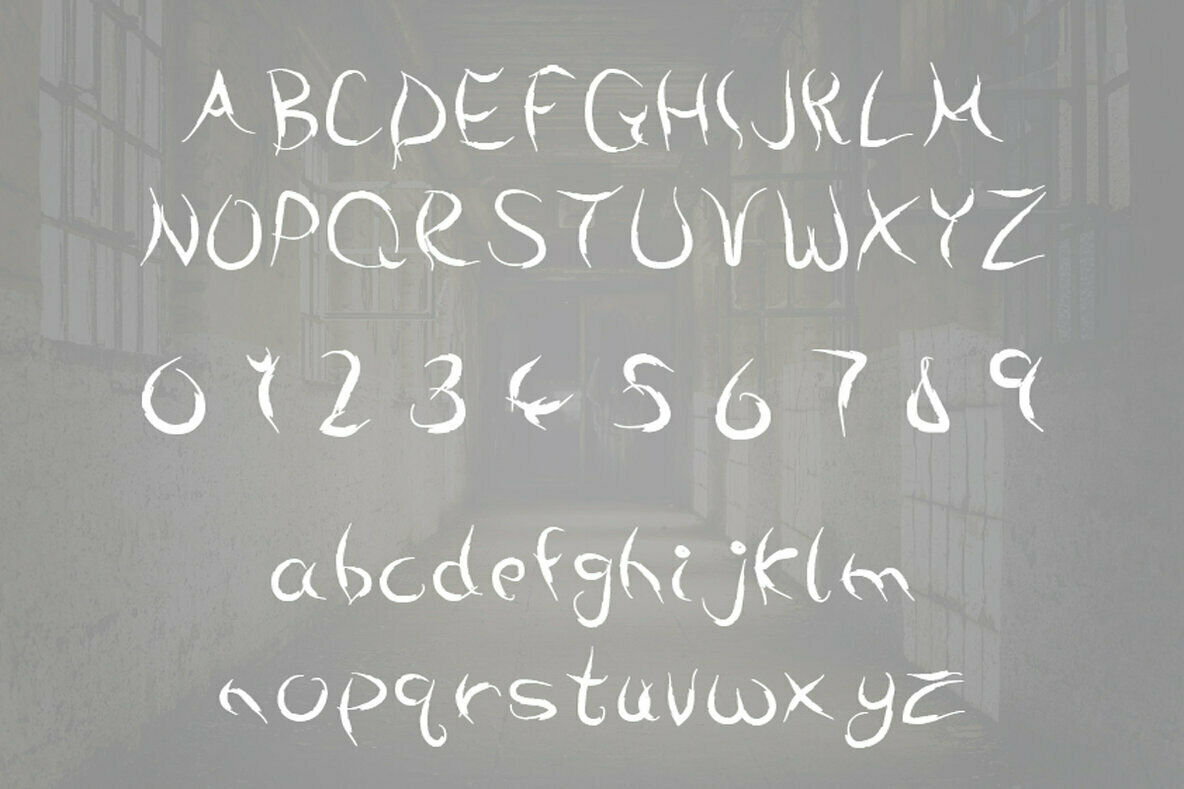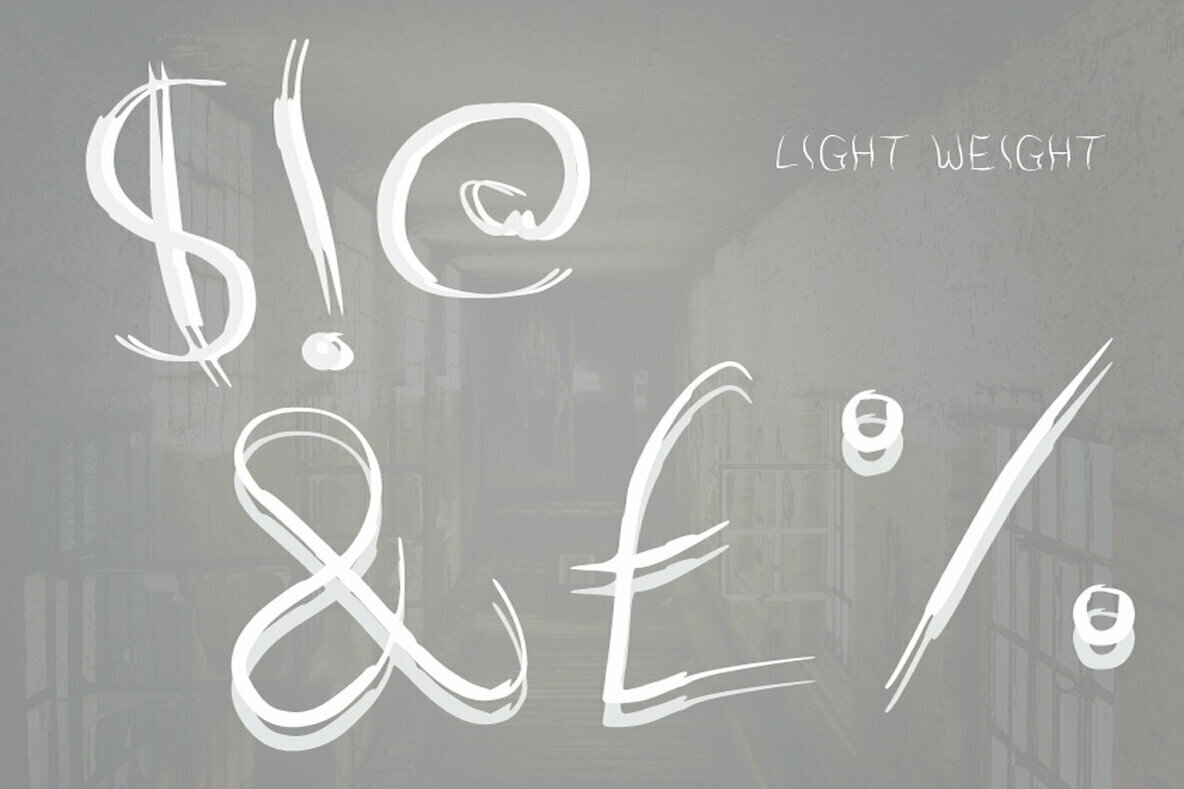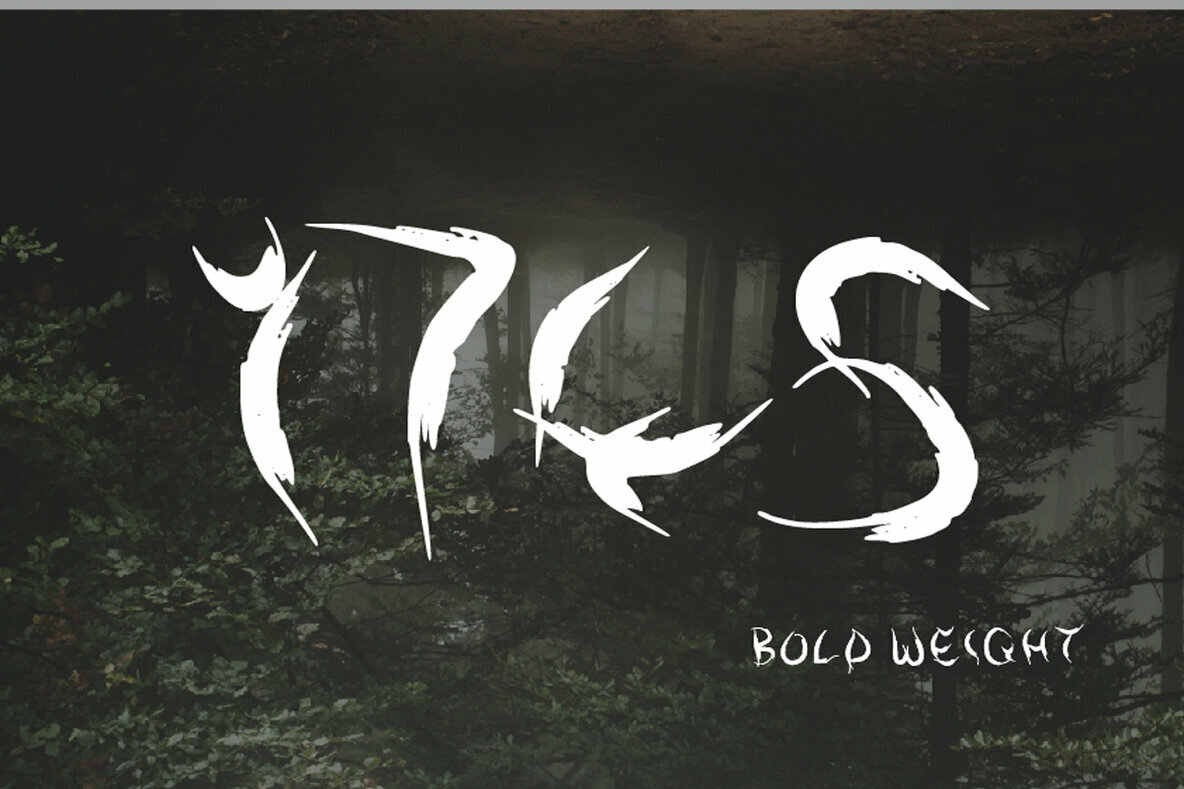
Yureis Hair 1
Yūrei’s Hair is based on the iconic Japanese ghosts girl know as Yūrei’s. This creepy, thin and wispy font is based on the black floating hair of the ghost character. A horror themed font based on historic and modern popular culture, Yūrei’s Hair is a bloody good script!